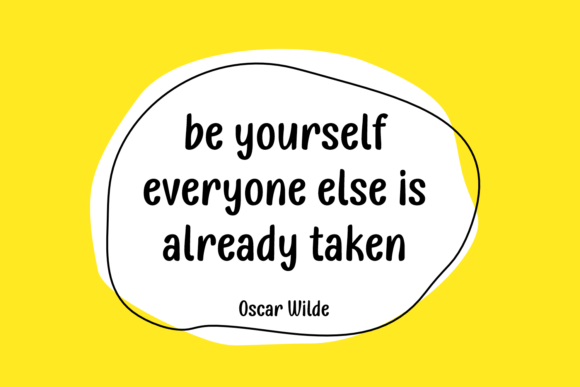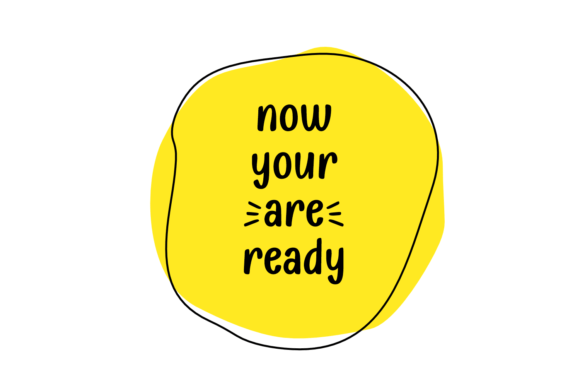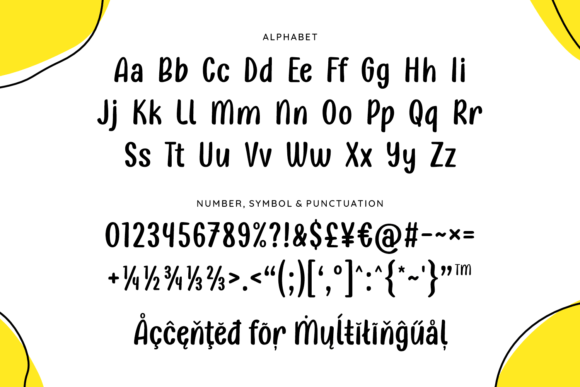
Feeling Enough Font: Elevate Your Designs with Elegance and Sophistication
In the world of typography, a font can make all the difference in the aesthetic and tone of a design. For those seeking a modern and elegant script font, Feeling Enough is an exceptional choice. This versatile typeface boasts a graceful flow of character strokes, making it perfect for a wide range of applications, from wedding invitations to logos and business cards.
The Characteristics of Feeling Enough Font
Feeling Enough is a modern script font that exudes elegance and sophistication. Its flowing strokes and carefully crafted characters create a sense of movement and fluidity, adding a touch of warmth and personality to any design. The font’s versatility stems from its ability to convey a sense of luxury and refinement, making it suitable for high-end branding, while also being approachable and friendly.
Uses of Feeling Enough Font
The applications of Feeling Enough font are vast and varied. Some of the most popular uses include:
- Wedding Invitations: Add a touch of romance and sophistication to your wedding stationery with Feeling Enough font. Its elegant script and flowing strokes create a beautiful and memorable first impression.
- Thank You Cards: Express gratitude in style with Feeling Enough font. Its warm and modern tone makes it perfect for thank you cards, gift tags, and other expressions of appreciation.
- Quotes and Typography: Use Feeling Enough font to add a touch of elegance to your quotes, typography, and other text-based designs. Its flowing strokes and beautiful characters create a stunning visual impact.
- Greeting Cards: From birthday cards to holiday greetings, Feeling Enough font is the perfect choice for creating warm and personalized cards.
- Logos and Branding: Establish a strong brand identity with Feeling Enough font. Its modern and sophisticated tone makes it ideal for luxury brands, boutiques, and high-end businesses.
- Business Cards: Make a lasting impression with Feeling Enough font on your business cards. Its elegant script and flowing strokes create a professional and stylish look.
Why Choose Feeling Enough Font?
With so many fonts available, why choose Feeling Enough? Here are just a few reasons:
- Unique and Elegant: Feeling Enough font boasts a unique and elegant design that sets it apart from other script fonts.
- Versatile: From formal to informal, Feeling Enough font adapts to any design style, making it incredibly versatile.
- High-Quality: With its clear and precise lines, Feeling Enough font ensures high-quality designs that look stunning in any medium.
- Easy to Read: Despite its elegant and flowing strokes, Feeling Enough font remains easy to read, making it perfect for body text and headlines.
Tips for Using Feeling Enough Font
To get the most out of Feeling Enough font, follow these tips:
- Pair with Neutral Fonts: Combine Feeling Enough font with neutral fonts, such as sans-serif or serif fonts, to create a balanced design.
- Experiment with Colors: Try different color combinations to find the perfect match for your design. Feeling Enough font looks stunning in metallic colors, pastels, and rich jewel tones.
- Play with Sizes: Experiment with different font sizes to create visual hierarchy and add depth to your design.
In conclusion, Feeling Enough font is a modern and elegant script font that can elevate any design with its sophisticated tone and flowing strokes. Whether you’re a designer, crafter, or DIY enthusiast, this versatile typeface is sure to become a favorite in your collection. With its wide range of applications, high-quality design, and ease of use, Feeling Enough font is the perfect choice for anyone seeking to add a touch of elegance and refinement to their designs.